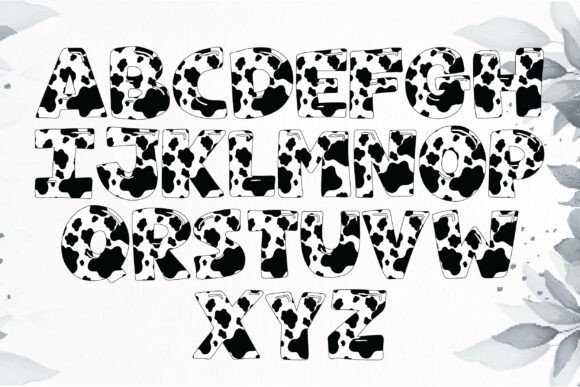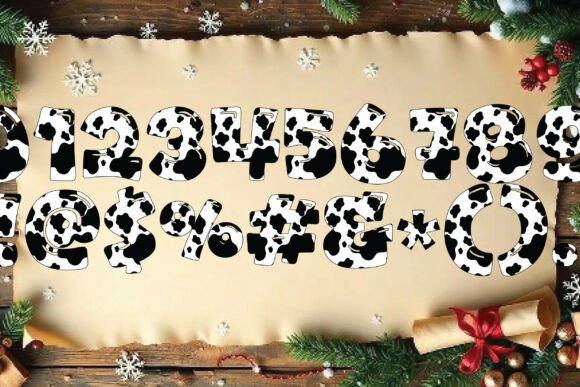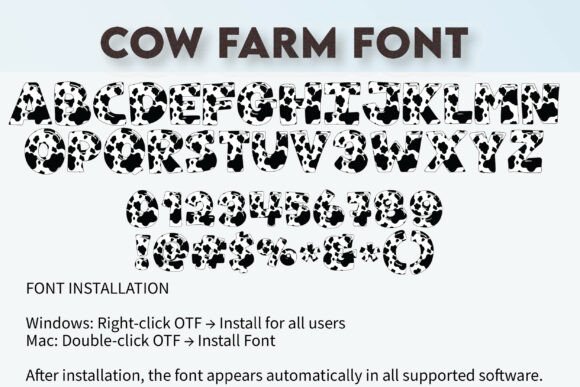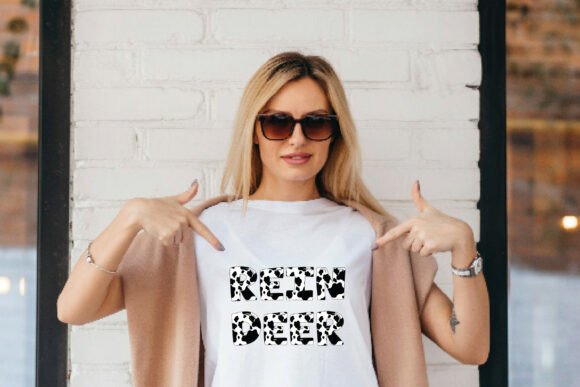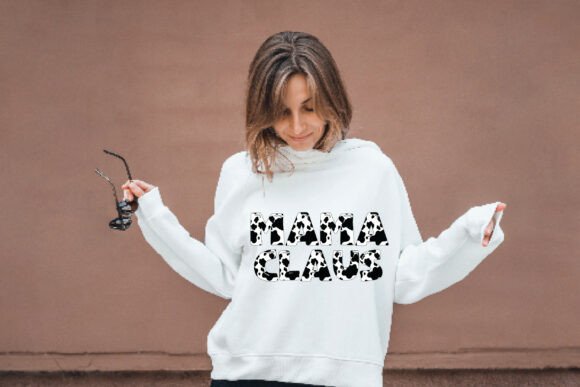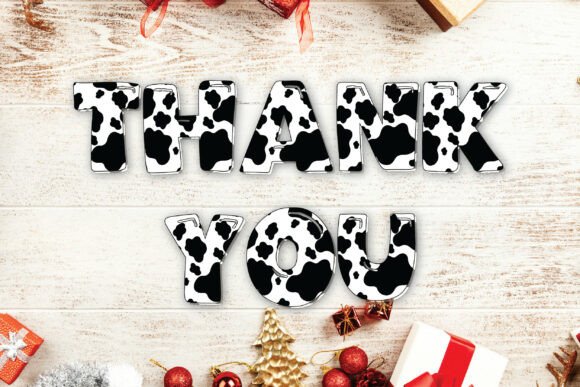
Cow Farm Font: A Charming Rustic Alphabet for Your Designs
Are you looking for a font that brings a touch of the countryside to your designs? Look no further than the Cow Farm Font, a delightful and rustic alphabet inspired by farm life and cow patterns. This charming font is perfect for designers and crafters who want to add a friendly and rustic touch to their projects.
What is Cow Farm Font?
The Cow Farm Font is a unique and creative typeface that captures the essence of farm life. With its cute and playful design, this font is sure to delight both kids and adults alike. The font features a range of alphabet letters and symbols, including uppercase and lowercase letters, numbers, and punctuation marks, all designed with a rustic and country feel.
Features of Cow Farm Font
- Rustic and charming design: The Cow Farm Font features a unique and charming design that is perfect for farmhouse signs, kids projects, dairy branding, and more.
- Wide range of uses: The Cow Farm Font is perfect for a wide range of projects, including farmhouse signs, kids projects, dairy branding, stickers, t-shirts, party decor, classroom activities, scrapbooking, and digital crafts.
Uses for Cow Farm Font
The Cow Farm Font is a versatile font that can be used for a wide range of projects. Here are some ideas to get you started:
- Farmhouse signs: Use the Cow Farm Font to create charming farmhouse signs that add a touch of rustic charm to your home or business.
- Kids projects: This font is perfect for kids projects, such as coloring pages, crafts, and activity sheets.
- Dairy branding: The Cow Farm Font is a great choice for dairy branding, including milk bottles, cartons, and packaging.
- Stickers and t-shirts: Use the font to create fun and playful stickers and t-shirts that are perfect for kids and adults alike.
- Party decor: The Cow Farm Font is perfect for party decor, including invitations, banners, and other party supplies.
- Classroom activities: This font is a great choice for classroom activities, including worksheets, activity sheets, and other educational materials.
- Scrapbooking and digital crafts: The Cow Farm Font can be used to add a touch of rustic charm to your scrapbooking and digital crafts.
The Cow Farm Font is a charming and rustic alphabet that is perfect for designers and crafters who want to add a touch of the countryside to their designs. With its wide range of uses and compatibility with a range of design software, this font is a great choice for anyone looking for a unique and creative typeface.